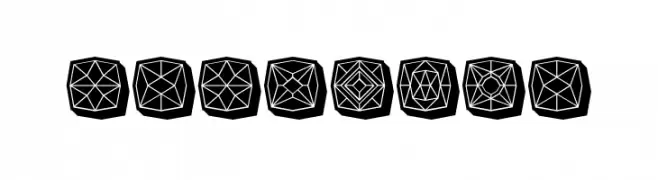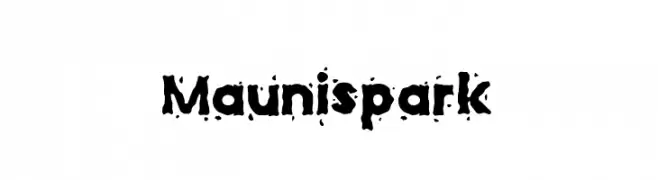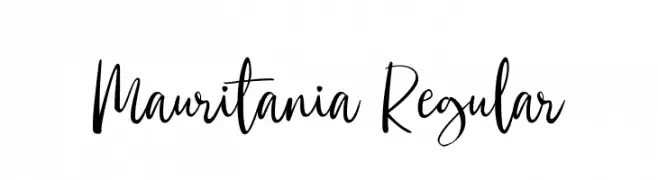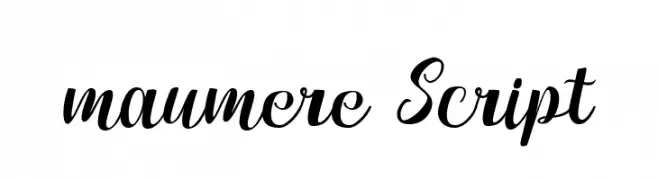
A playful, bold handwritten font with thick, rounded strokes.
An elegant and decorative script font with ornate letterforms.
A bold, hand-drawn font with a playful and expressive style.
A bold, hand-drawn font with dynamic, irregular strokes and artistic flair.
Intricate geometric shapes within hexagonal outlines, offering a modern and decorative style.
A flowing, cursive script font with elegant, connected characters.
A bold, blocky font with tight spacing and a modern, impactful style.
A playful, splattered ink-style font with irregular edges.
Playful, bold handwritten script font.
A lively and expressive handwritten font with dynamic strokes.